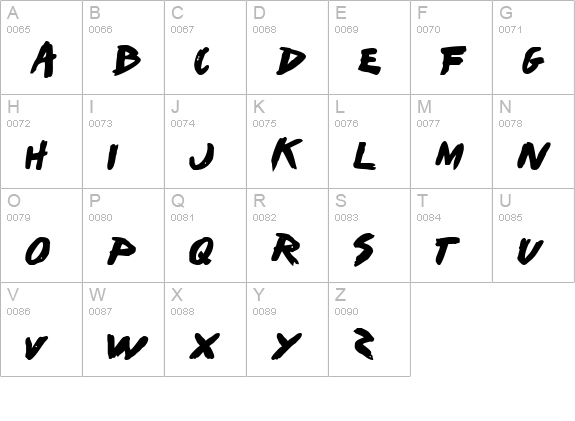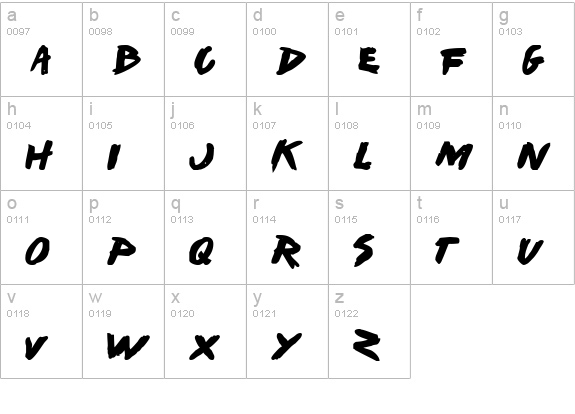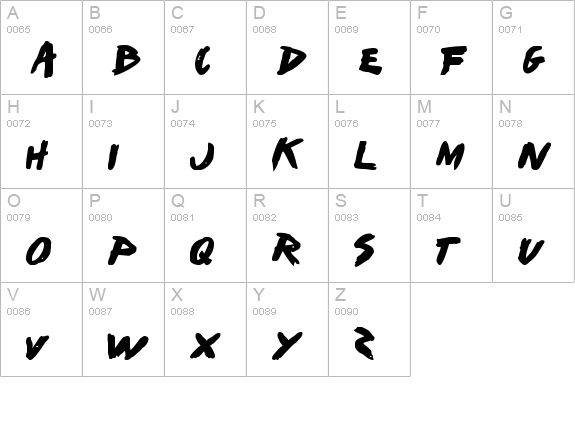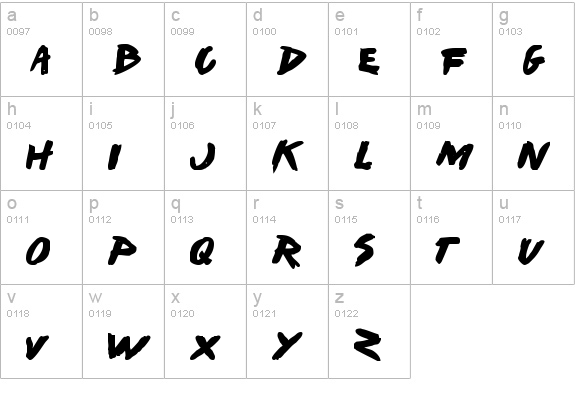
I Want My TTR! (Bold) Font Details
I Want My TTR! (Bold) is a strong, high-contrast variant in the I typeface family \xE2\x80\x94 well suited to headlines, attention-grabbing titles, and strong calls-to-action.
Introducing the striking and captivating I Want My TTR! (Bold) font, a true masterpiece in the world of typography. This bold and assertive font is designed to make a statement and leave a lasting impression. Its strong and powerful presence demands attention and instantly grabs the viewer's eye. I Want My TTR! (Bold) font features a unique and modern design that exudes confidence and creativity. Its thick and prominent strokes create a bold and impactful appearance, making it perfect for headlines, titles, and other attention-grabbing design elements. This font is guaranteed to make your message stand out from the crowd and leave a lasting impact on your audience. One of the most remarkable features of I Want My TTR! (Bold) font is its versatility. It seamlessly adapts to various design styles and themes, making it suitable for a wide range of projects. Whether you're working on a modern website, an edgy poster, or a sleek magazine layout, this font will effortlessly elevate your design and bring it to life. But that's not all—what makes I Want My TTR! (Bold) font even more extraordinary is that it is available for free! Yes, you read that right. This remarkable font can be freely downloaded at FontsMarket.com, ensuring that you can access and utilize its incredible features without any cost. So, whether you're a professional designer, a student, or simply someone with a passion for creative expression, this font is accessible and available for everyone. Don't miss out on the opportunity to enhance your designs with the bold and captivating I Want My TTR! (Bold) font. Download it for free today at FontsMarket.com and unlock its unlimited potential. Get ready to make a bold statement and captivate your audience like never before.